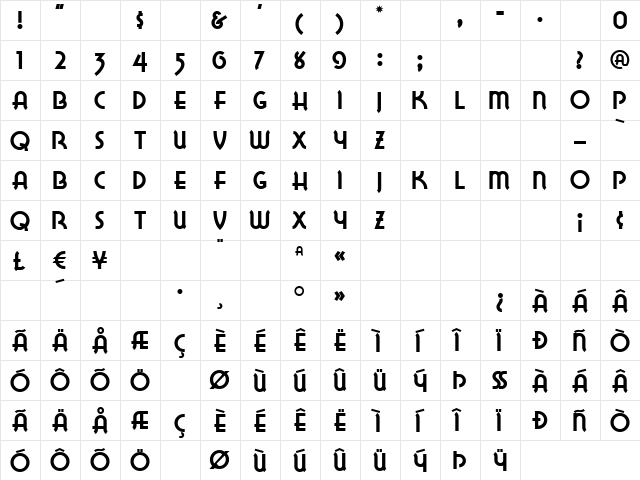
LakeWobegonNF Regular
Design Context for LakeWobegonNF Typeface
LakeWobegonNF offers clean, dependable letterforms without strong stylistic allegiance, making it a practical choice for designers who need flexibility.
Pro Tip: Use LakeWobegonNF in both headline and body roles to test its range before committing to a single application.